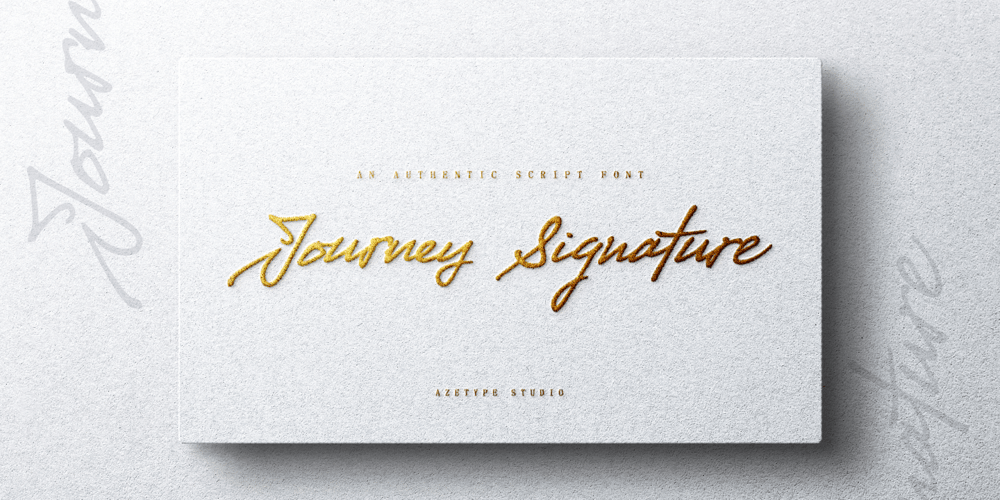
Journey Signature
Journey Signature font
Journey Signature Font Family was designed by Muh. Aswar and published by Azetype. Journey Signature contains 2 styles and family package options. Presenting Journey Signature! An Authentic Script Font crafted carefully. Based on original signature hand scratches that look Classy and Vintage style. This font can be used at any time and in any project. You can see in the presentation picture above, how it’s working!So, this font can give a different touch to all your design projects e.g. watermark, quotes, logotype, poster design, personal branding, lettering, photography needs, blog header, wedding, letter, invitation, stationery, etc.WHAT’S INCLUDED?1. Journey Signature • This one comes with Standard Characters and 3 Stylistic Alternates (uppercase, lowercase) numeral, punctuation, symbols, and huge multilanguage support e.g. Afrikaans, Albanian, Catalan, Czech, Danish, Dutch, English, Estonian, Finnish, French, German, Hungarian, Icelandic, Indonesian, Italian, Latvian, Lithuanian, Maltese, Malay, Norwegian, Polish, Portuguese, Spanisch, Slovak, Slovenian, Swedish, Zulu, and Many More).• Multilingaul Glyphs: ÀÁÂÃÅÄĀĂǺĄÆǼǢÇĆČĈĊĎÐÈÉÊËĘĒĖĚĔĞĢĠĜÌÍÎǏÏĪĮĬĨļĶĿĽĻĹŁÑŃŇŅŊÒÓÔÕÖŌŐŎØŒÞŔŘŖŚŠŞŜ ŦŤŢÙÚÛÜŪŮŰŲŨŬŴÝŸŶŻŹŽàáâãåäāăǻąæǣçćčċĉďđðèéêëęěēėĕğģġĝĥħıìíîǐïīįĭĩķłŀĺñńňŋʼnņòóôõöőŏøœ þŕřŗśšşşŝßŧťţùúûüūůűųŭŵýÿŷżźž2. Journey Signature Swash • This One comes with an underline swash that makes your design project looks standout and classy. For feature, you just type A-Z or a-z, choose the Swash version, and than ready to use.Thank YouAzetype Std.